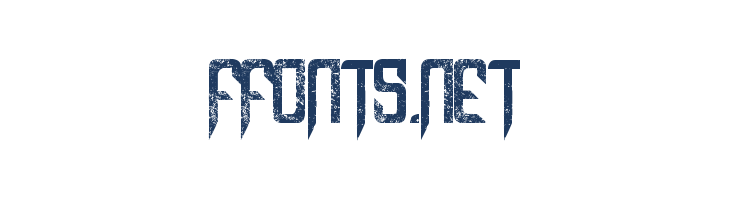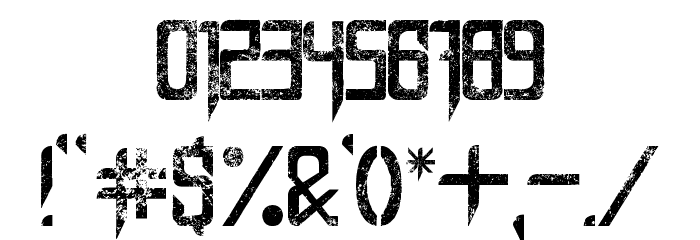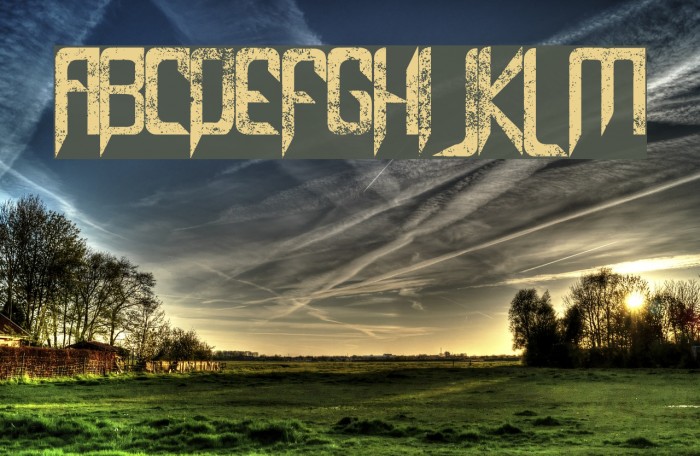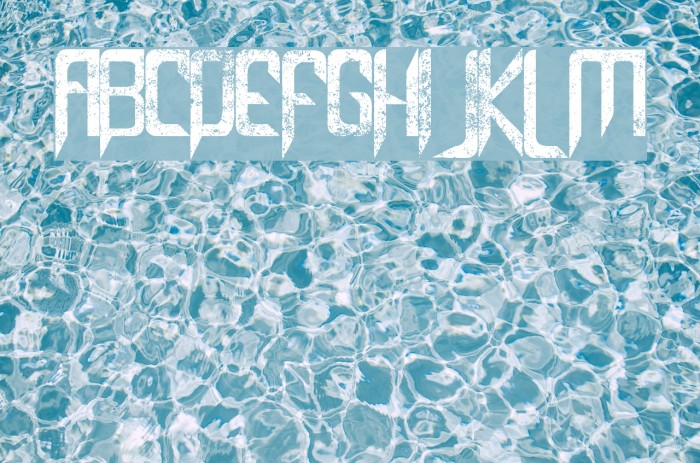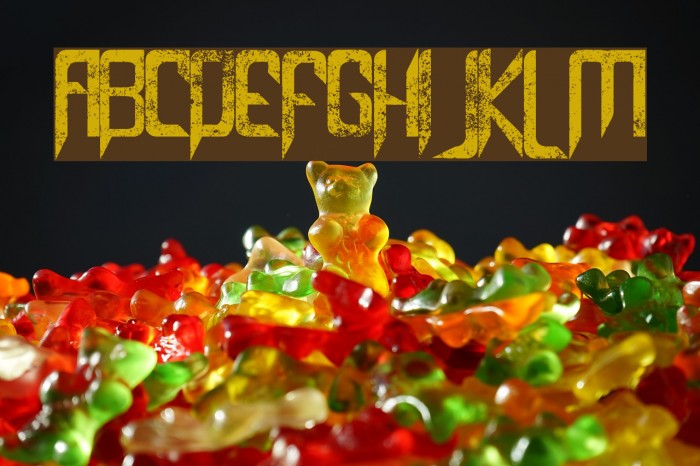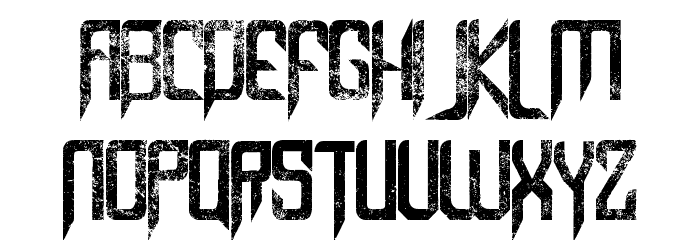
Capella (Rock) III Bold Font
This font features a bold, distressed style with a rugged, textured appearance. The characters are angular and sharp, giving them a dynamic and edgy look. The uppercase letters are particularly striking, with pointed edges and a heavy weight that commands attention. The numbers and special characters maintain this bold and gritty aesthetic, making the font suitable for projects that require a strong visual impact. The overall design is reminiscent of rock or metal music themes, with a rebellious and energetic vibe.
A bold, distressed font with an edgy, angular design.
• Proposed Projects: Ideal for music album covers, concert posters, edgy branding, and any project that requires a bold, impactful statement.
• Category: Decorative/Display
• Overall Style: Modern, Edgy
• Use Case: Headlines, Logos, Posters